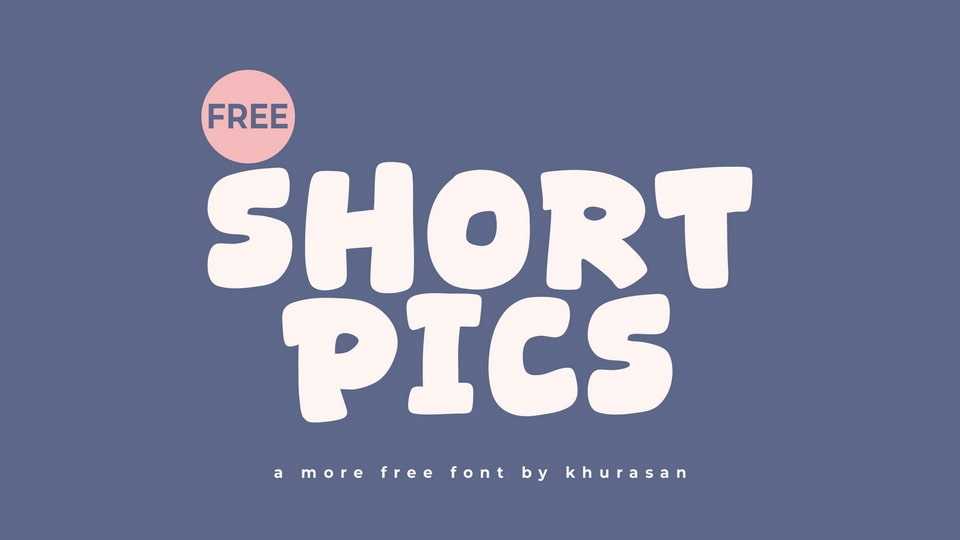
Download Short Pics font, a playful, chunky hand-drawn typeface with soft, rounded shapes that radiate warmth and friendliness. Its bold, bouncy letters create a fun and approachable look.